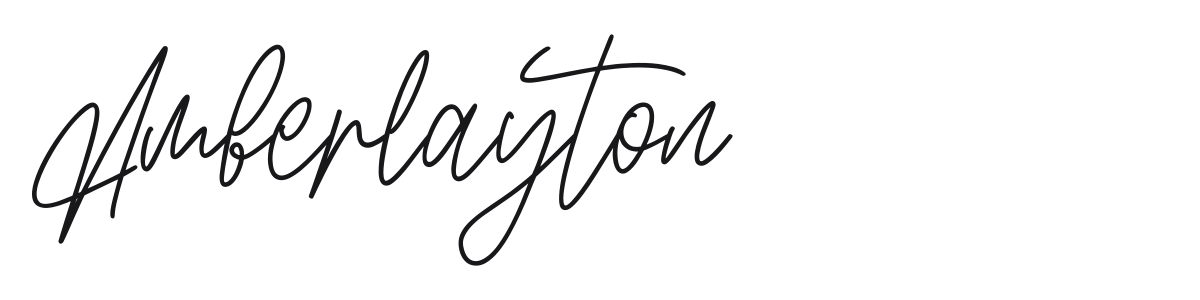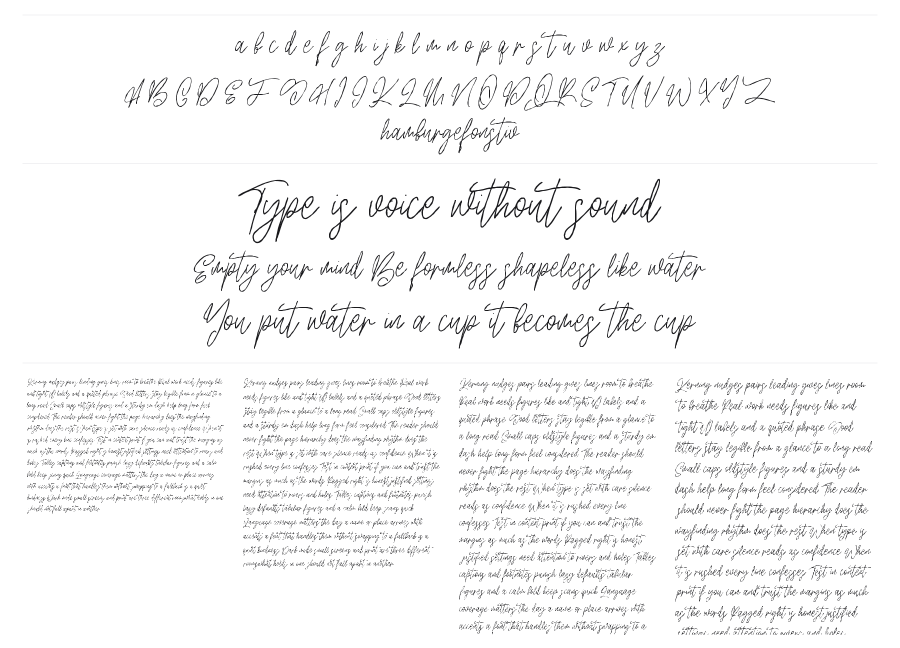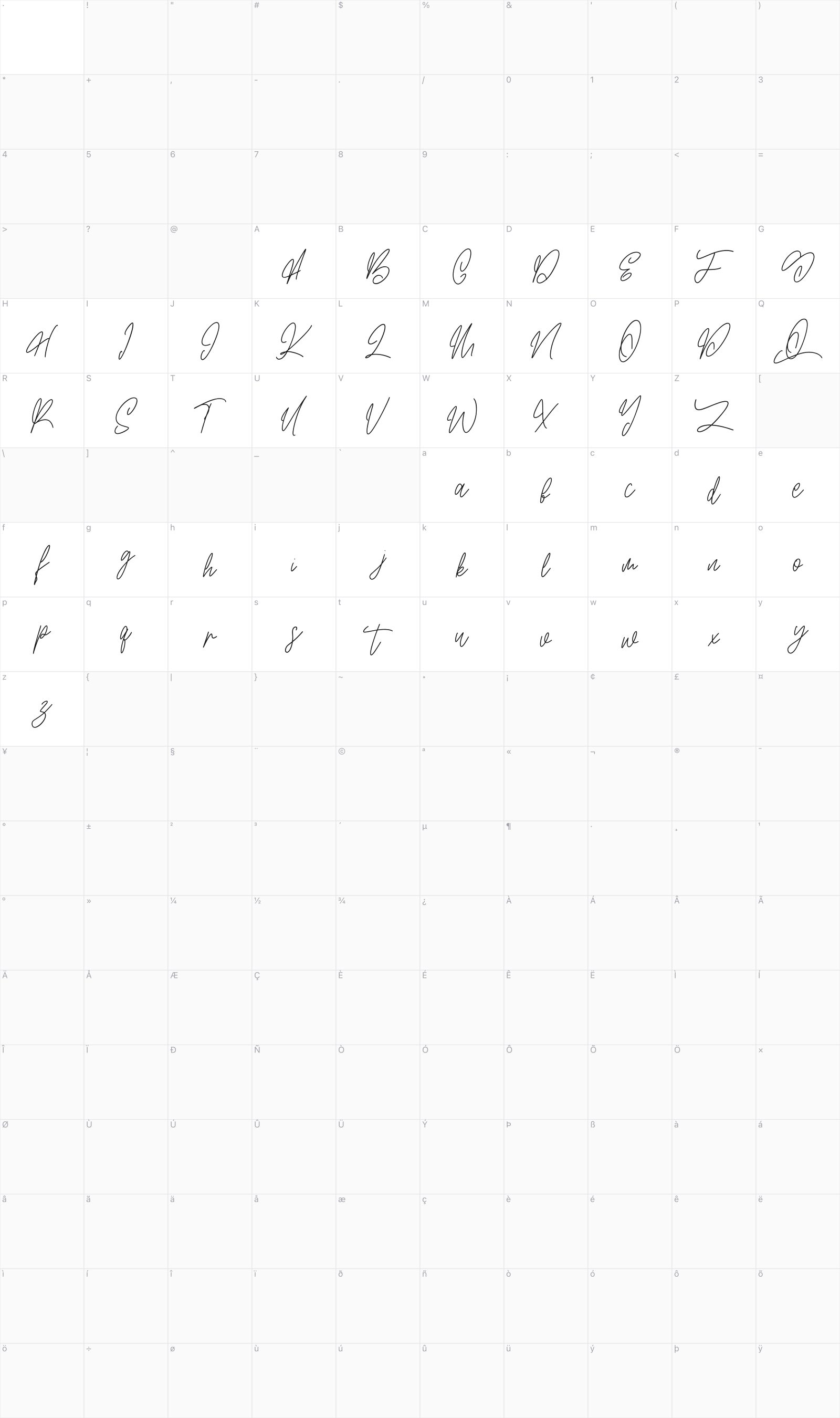
Amberlayton
Amberlayton is a casual connected script with the loose, effortless look of a stylish personal signature. Long looping ascenders, sweeping connecting strokes, and thin monoweight construction give it a light and romantic quality. It suits wedding stationery, beauty branding, and any context that calls for a handcrafted, personal feel.